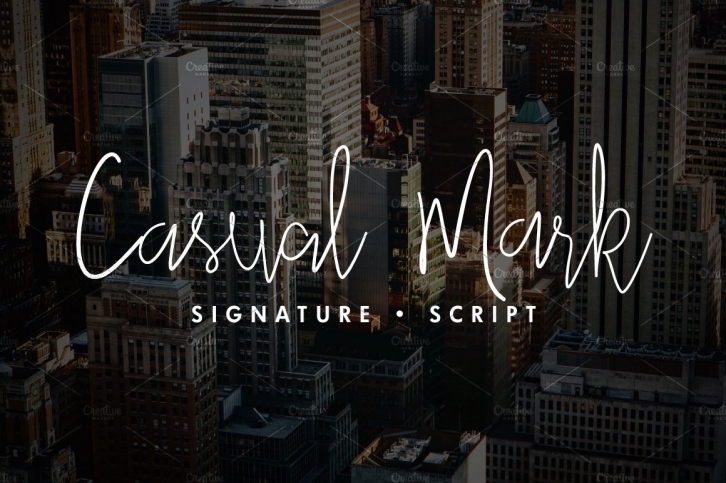
Casual Mark Script with ligatures and alternate lowercase gives a personalized feeling to your work and have 2 styles, regular and bold. This font contain 479 glyphs
OpenType features: Ligatures, Discretionary Ligatures, Alternates